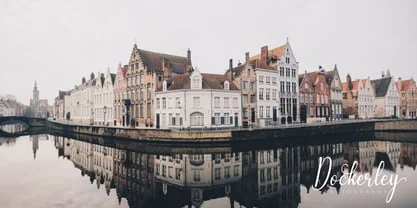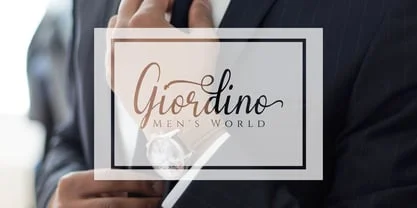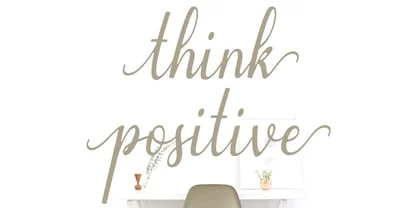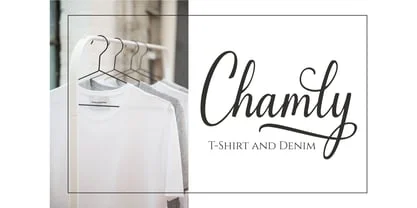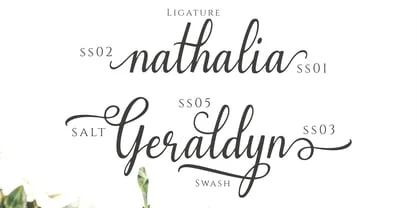
Emilyne Font
There is a particular satisfaction in finding a typeface that delivers strong typographic hierarchy support without compromise. Emilyne consistently provides it. The typeface brings an elegant, calligraphic sensibility to a broad range of creative disciplines, with visual harmony and precise spacing that holds up whether the work is print-first or screen-first.
In practice, Emilyne proves particularly effective for perfume labels, web design, product labels, fashion editorials, logo design. Designers reaching for it find that the type decisions feel resolved rather than laboured — a useful quality when client timelines are tight.
The range of applications extends to wedding invitations, beauty packaging, luxury stationery, packaging design. That breadth is deliberate: the proportions and spacing were stress-tested across a wide range of mock briefs before the typeface was finalised.
Brand strategists building visual languages find Emilyne a reliable choice for projects that demand both personality and restraint. The design avoids the self-conscious quirkiness that dates quickly, settling instead for considered distinctiveness that holds up over time.